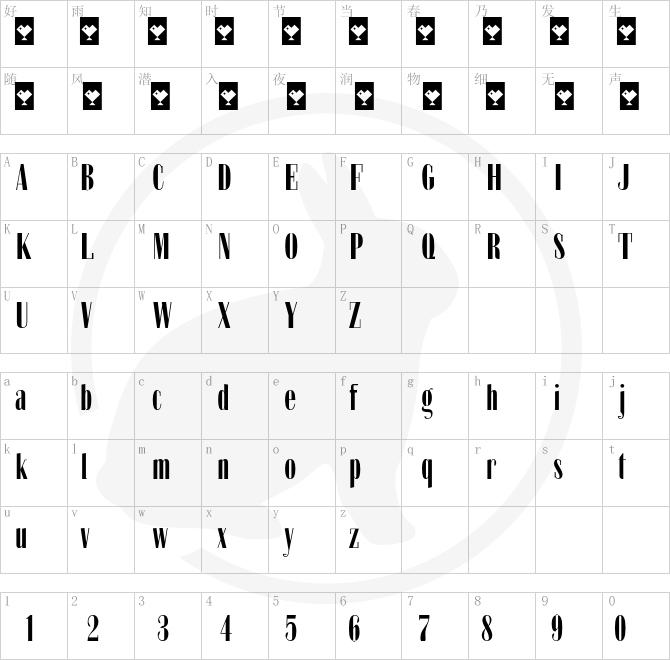
- Font Name:Zabatana Poster
Zabatana-Poster.otf is a very beautiful artistic font, Zabatana-Poster.otf is widely used in the design and printing of various books and pictures,Zabatana-Poster.otf has a strong visual impact,Zabatana-Poster.otf is a commonly used font in newspapers, magazines and books, and is used in posters, e-commerce Poster design, store design, logo design, font design and other fields.Zabatana-Poster.